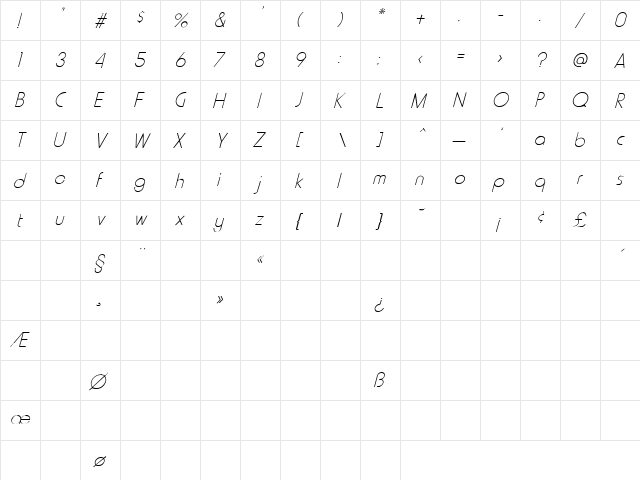
Dancing Days 2 Italic Font Preview
Dancing Days 2 Italic
Design Context for Dancing Days 2 Typeface
Dancing Days 2 takes a measured approach to typography — its balanced proportions and neutral character make it a reliable workhorse for both digital and print work. The dynamic lean of this cut emphasises speed and emphasis in any layout.